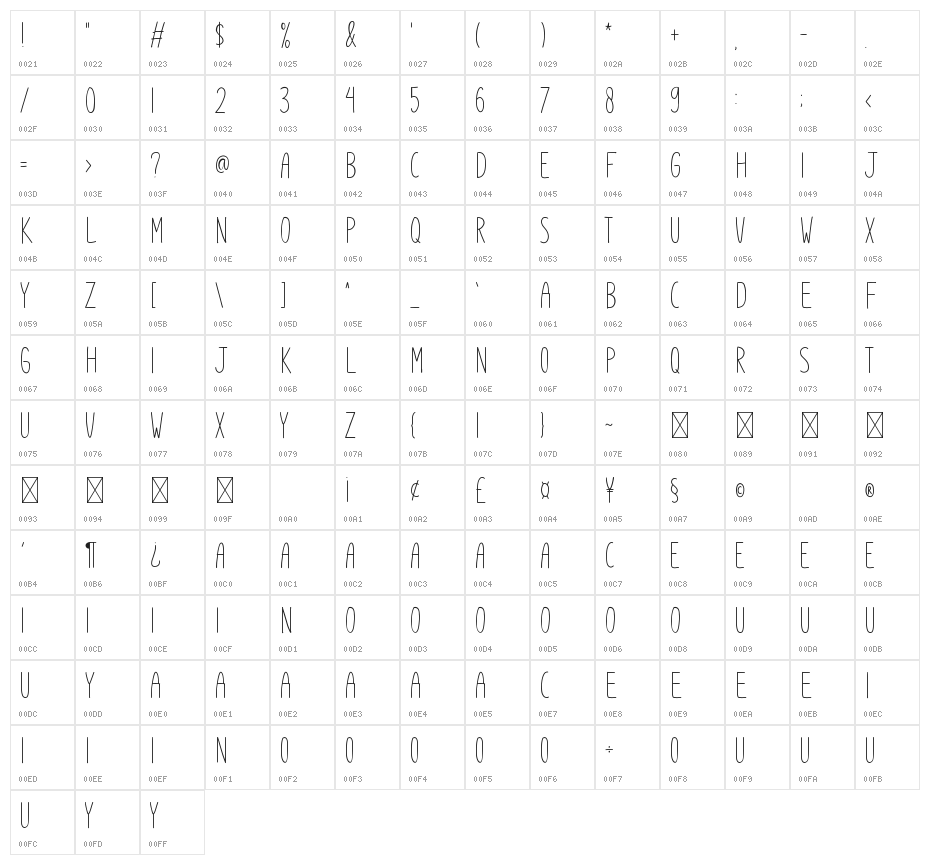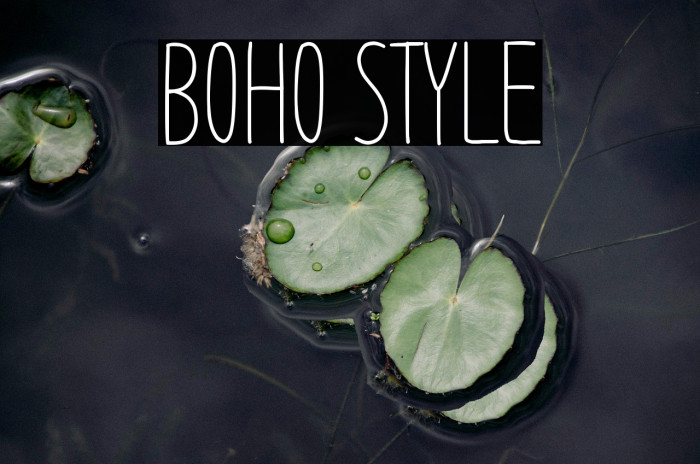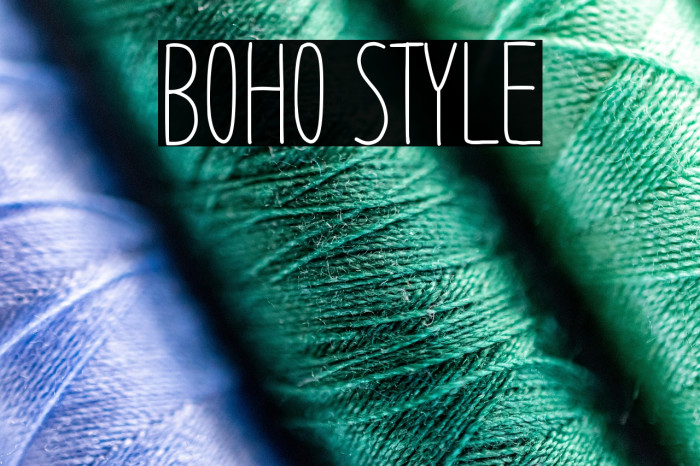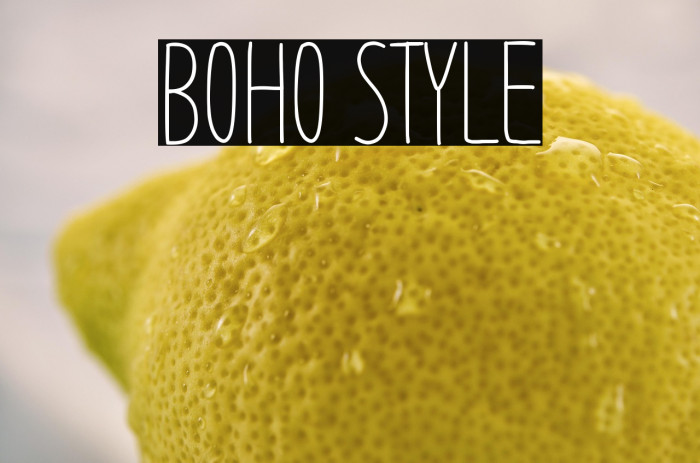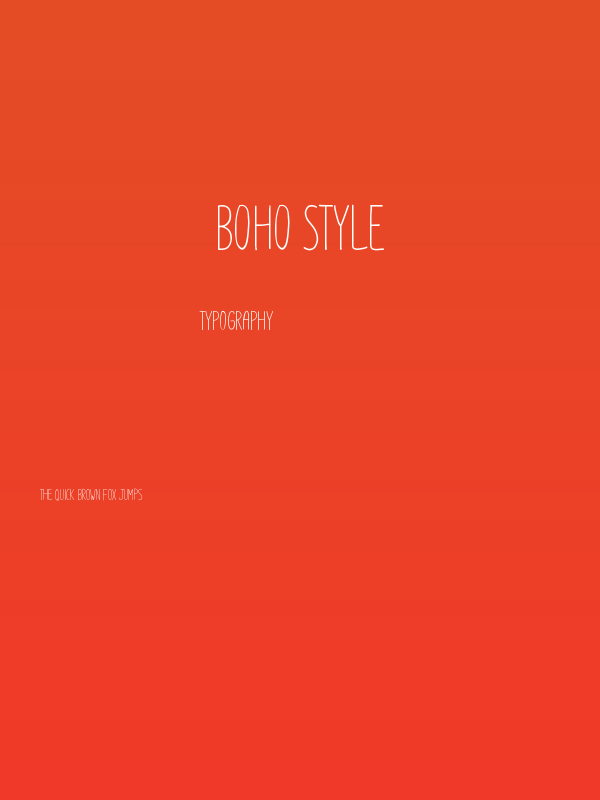
Boho Style Font
| Gesamtstil | Modern, Bohemian |
| Anwendungsfall | Headlines, Posters, Invitations |
| Vorgeschlagene Projekte | Ideal for creative projects such as invitations, posters, and branding materials that require a unique and artistic touch. |